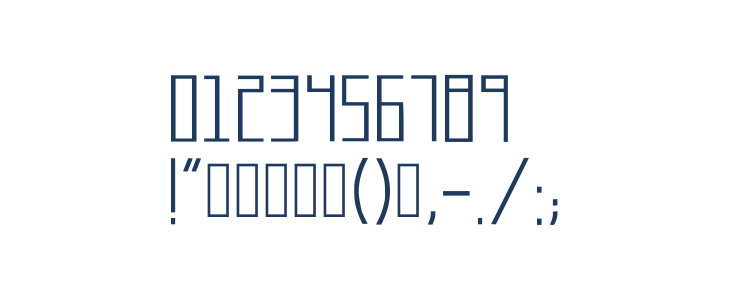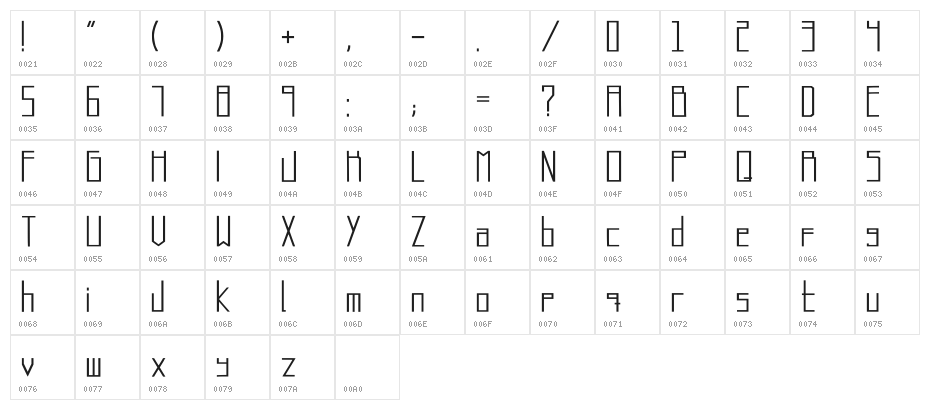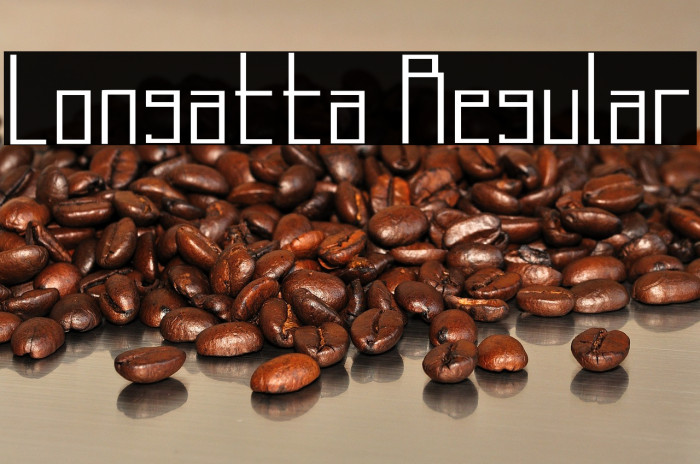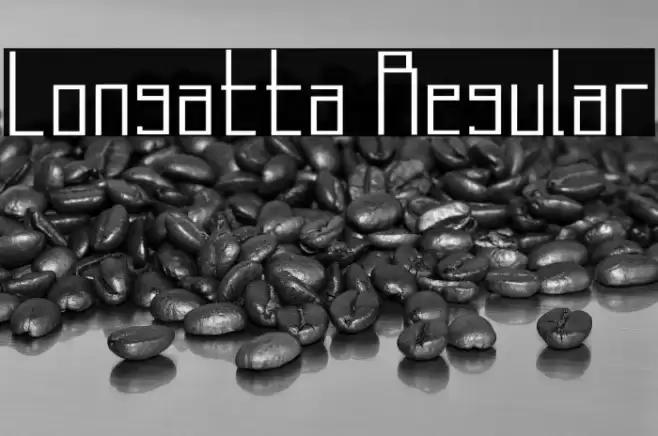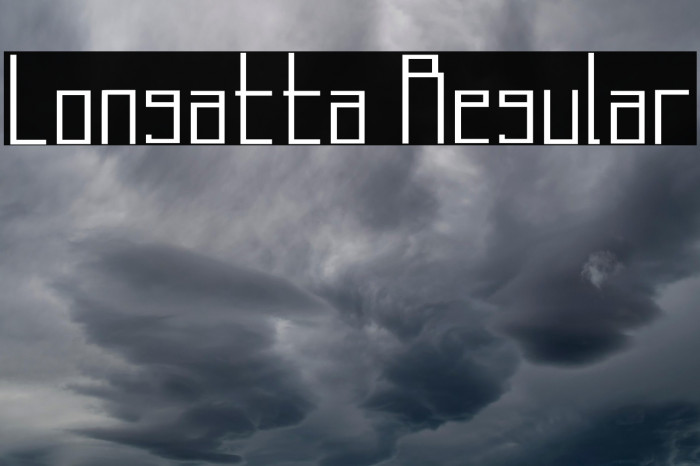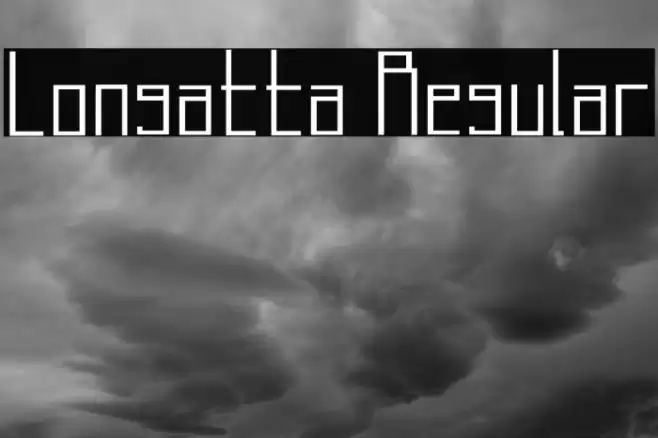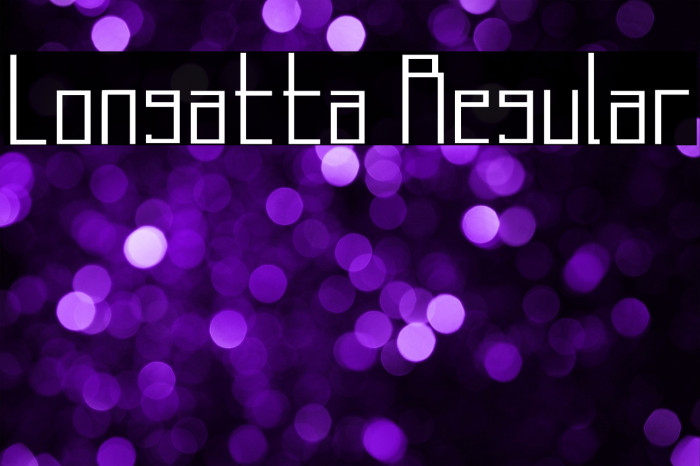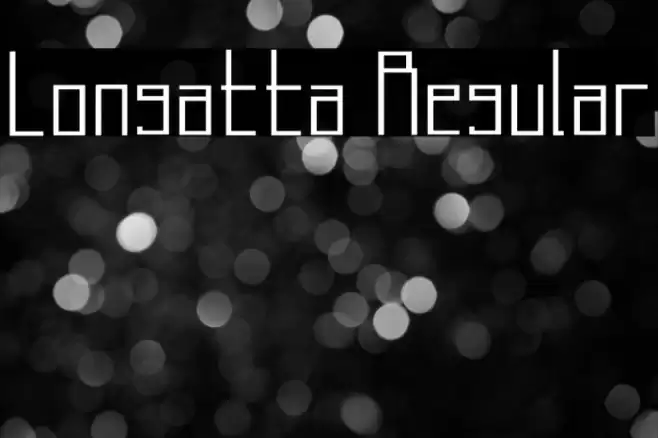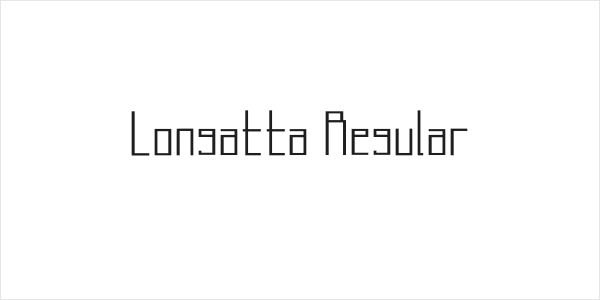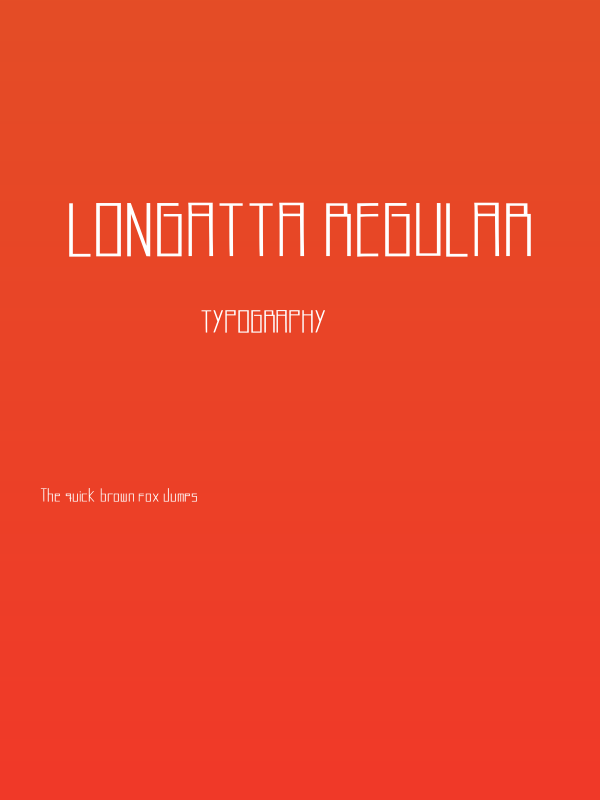
Longatta Regular Font
Longatta Regular Description
This font features a geometric and modern design, characterized by its tall, narrow letterforms and consistent stroke width. The uppercase and lowercase letters maintain a uniform height, creating a cohesive and structured appearance. The angular edges and straight lines give it a futuristic and minimalist aesthetic. The numerals and special characters follow the same design principles, ensuring a harmonious look across all glyphs. This font is well-suited for projects that require a clean and contemporary feel, making it ideal for digital interfaces and modern branding.
| Proposed Projects | Ideal for digital interfaces, modern branding, tech-related projects, and minimalist designs. |